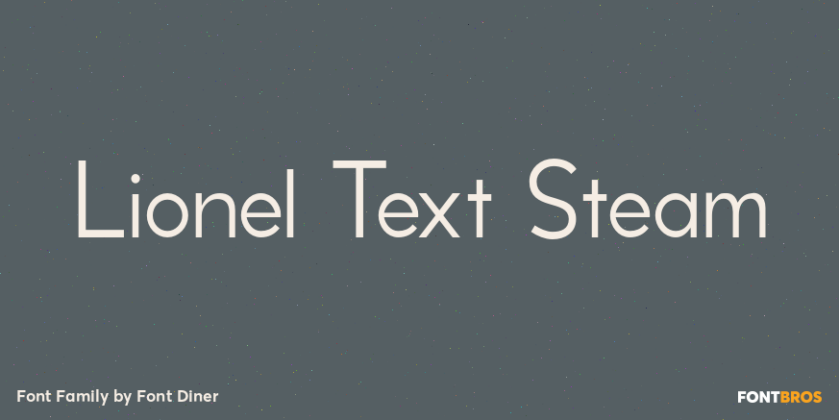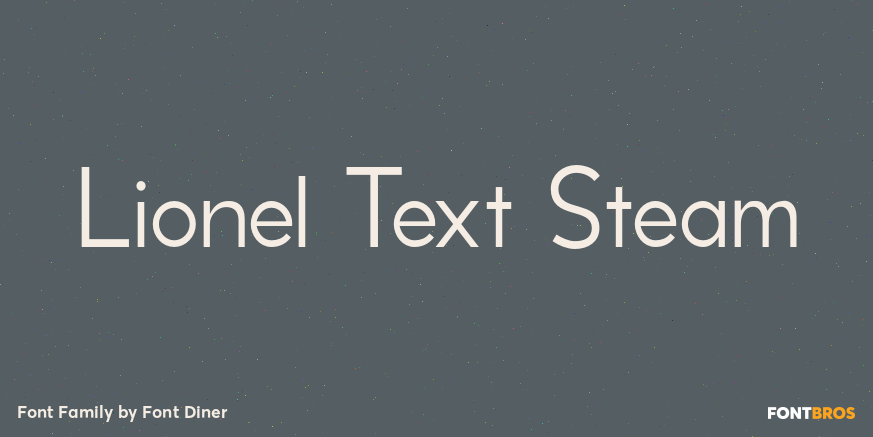
HomeFont BrosArt Deco (1910-1935)Lionel Text Steam Art Deco (1910-1935)Sans SerifRetro (1936-1965) Lionel Text Steam FacebookXPinterestWhatsApp 1 of 1 About Lionel Text Steam Take this 1940s inspired sans-serif for a spin on the Pennsylvania RR in its elegant lightest weight!  DOWNLOAD ON FONT BROSThis font is sold and delivered by Font Bros. Font Canyon may earn a commission if you buy through this link. People also explored Signatria Font Solid Chocolate Font Farmers Daughter Font Hey Beach Font Eagle Sight Stamp Font Appo Paint Font Sprinkles Font WOLFSBURG Font 327 0 TagsLionel Text Steam Font Previous articleSmooth BrushingsNext articleSweater School LEAVE A REPLY Cancel reply Comment: Please enter your comment! Name:* Please enter your name here Email:* You have entered an incorrect email address! Please enter your email address here Website: Save my name, email, and website in this browser for the next time I comment. Personal Use Free Rellista Script Personal Use Free Read more about this font White Rose Personal Use Free Read more about this font Kellana Personal Use Free Read more about this font Marthissa Personal Use Free Read more about this font BLOG Elegant Wedding Invitation Fonts – Handwritten & Script Fonts Elegant Wedding Invitation Fonts Your wedding day is one of the most important moments of your life, and every detail matters—including your invitation design. Our... Fonts That Capture the Spirit of New York City Modern Sans-Serif Fonts That Brands Love in 2025 Where to Buy American Fonts Online in 2024